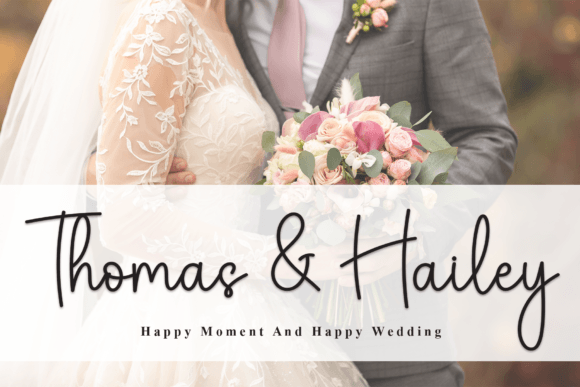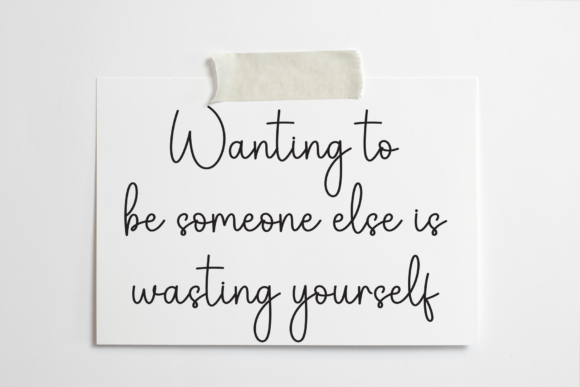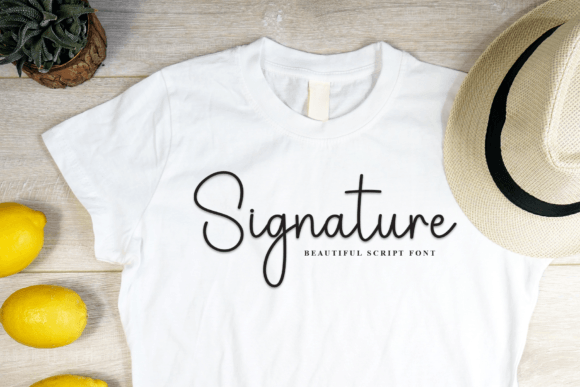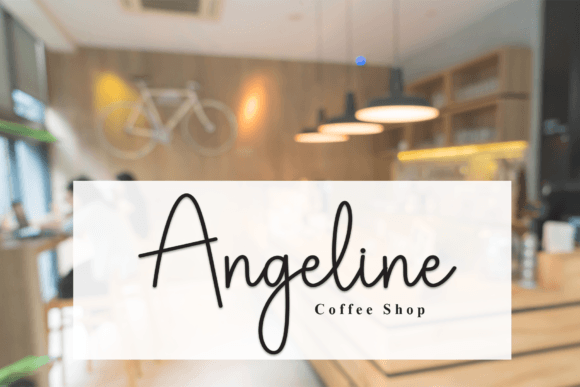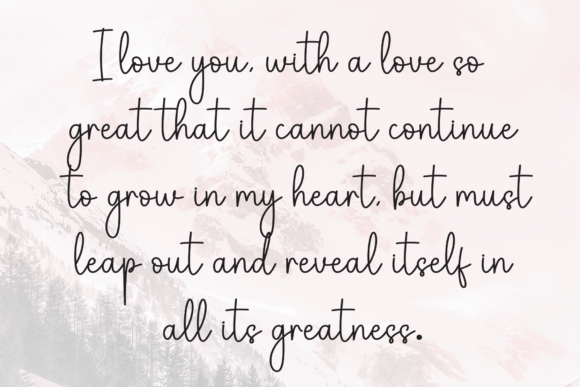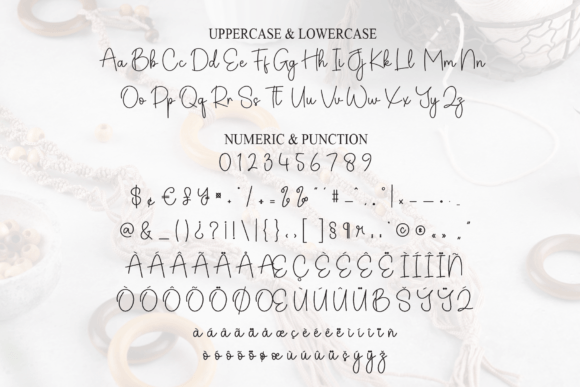
Introducing Handmade Font: The Perfect Addition to Your Design Projects
Are you looking for a font that can add a personal touch to your designs? Look no further than Handmade Font, a cute and casual handwritten font that’s perfect for a variety of projects. With its playful curves and friendly character, Handmade Font is ideal for greeting cards, whimsical branding, and cozy invitations.
The Charm of Handmade Font
Handmade Font is a charming typeface that’s designed to bring a sense of warmth and personality to your designs. Its handwritten style gives it a unique and organic feel that’s perfect for designers and crafters who want to add a touch of whimsy to their work. Whether you’re creating a greeting card, a branding campaign, or an invitation, Handmade Font is the perfect choice.
Key Features of Handmade Font
- Playful curves: Handmade Font features playful curves and fluid lines that give it a friendly and approachable feel.
- Handwritten style: The font’s handwritten style gives it a unique and organic feel that’s perfect for adding a personal touch to your designs.
- Cute and casual: Handmade Font is a cute and casual font that’s perfect for designers and crafters who want to add a touch of whimsy to their work.
- Multilingual support: Handmade Font supports multiple languages, making it a great choice for designers who work with clients from around the world.
Uses for Handmade Font
Handmade Font is a versatile typeface that can be used for a variety of projects, including:
- Greeting cards: Add a personal touch to your greeting cards with Handmade Font’s playful curves and friendly character.
- Whimsical branding: Use Handmade Font to create a unique and memorable brand identity that’s perfect for businesses that want to stand out.
- Cozy invitations: Create warm and inviting invitations with Handmade Font’s handwritten style and playful curves.
- DIY projects: Handmade Font is perfect for DIY projects, such as crafting, scrapbooking, and journaling.
Tips for Using Handmade Font
Here are a few tips for using Handmade Font in your designs:
- Pair with other fonts: Handmade Font pairs well with other fonts, such as sans-serif fonts and script fonts.
- Use for headlines and body text: Handmade Font is suitable for both headlines and body text, making it a great choice for designers who want to create a cohesive look.
- Experiment with colors: Handmade Font looks great in a variety of colors, from bright and bold to soft and pastel.
Handmade Font is a charming and versatile typeface that’s perfect for designers and crafters who want to add a personal touch to their designs. With its playful curves and friendly character, Handmade Font is ideal for greeting cards, whimsical branding, and cozy invitations. Whether you’re a professional designer or a DIY crafter, Handmade Font is a great choice for any project.